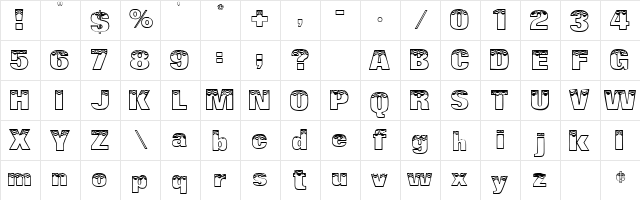
NewBunting Regular
Design Context for NewBunting Typeface
NewBunting is a composed and adaptable typeface that performs quietly and consistently across a wide range of design contexts.